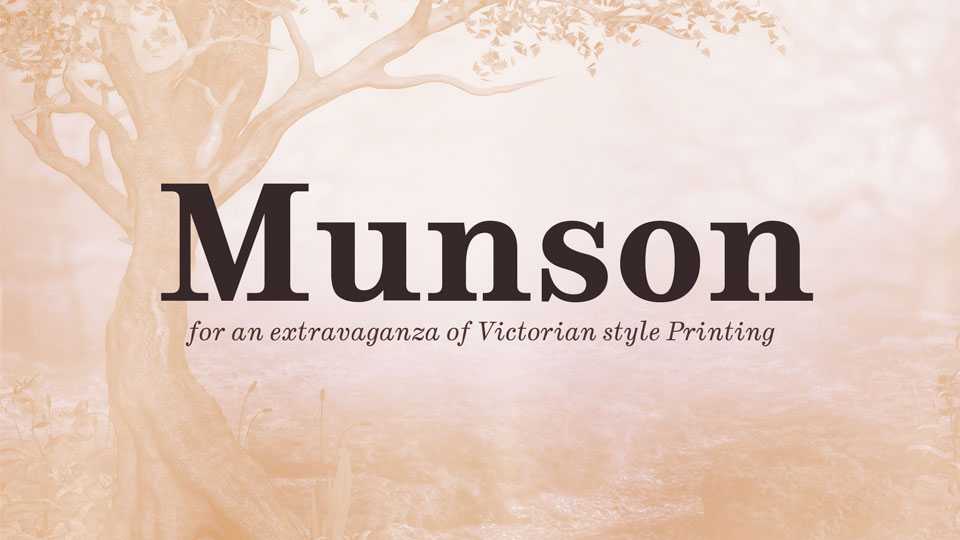
Download Munson typeface, a classic sans serif font family in four styles for an extravaganza of Victorian style Printing. Inspired by the Consort typeface of 1815 by the Stephenson Blake Company of Sheffield and the Clarendon typeface of 1845 by the Fann Street Foundry of London.
Designer: Paul James Miller